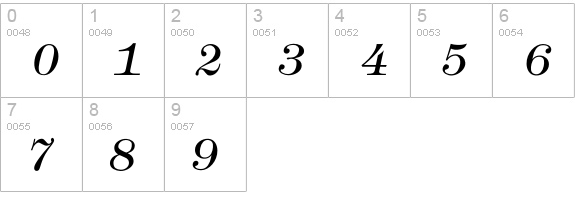
ModernLightItalic is a sleek and contemporary font that exudes elegance and sophistication. Its slender and graceful letterforms lend a touch of modernity to any design project. The italic style of this font adds a sense of movement and fluidity, making it perfect for conveying a sense of dynamism and forward-thinking attitude. This font is not only stylish and versatile, but it is also free to download at FontsMarket.com. Whether you are working on a website, a branding project, or a print design, ModernLightItalic is sure to bring a touch of sophistication and refinement to your work. Download it now and elevate your designs with this beautiful and free typeface.